Weight
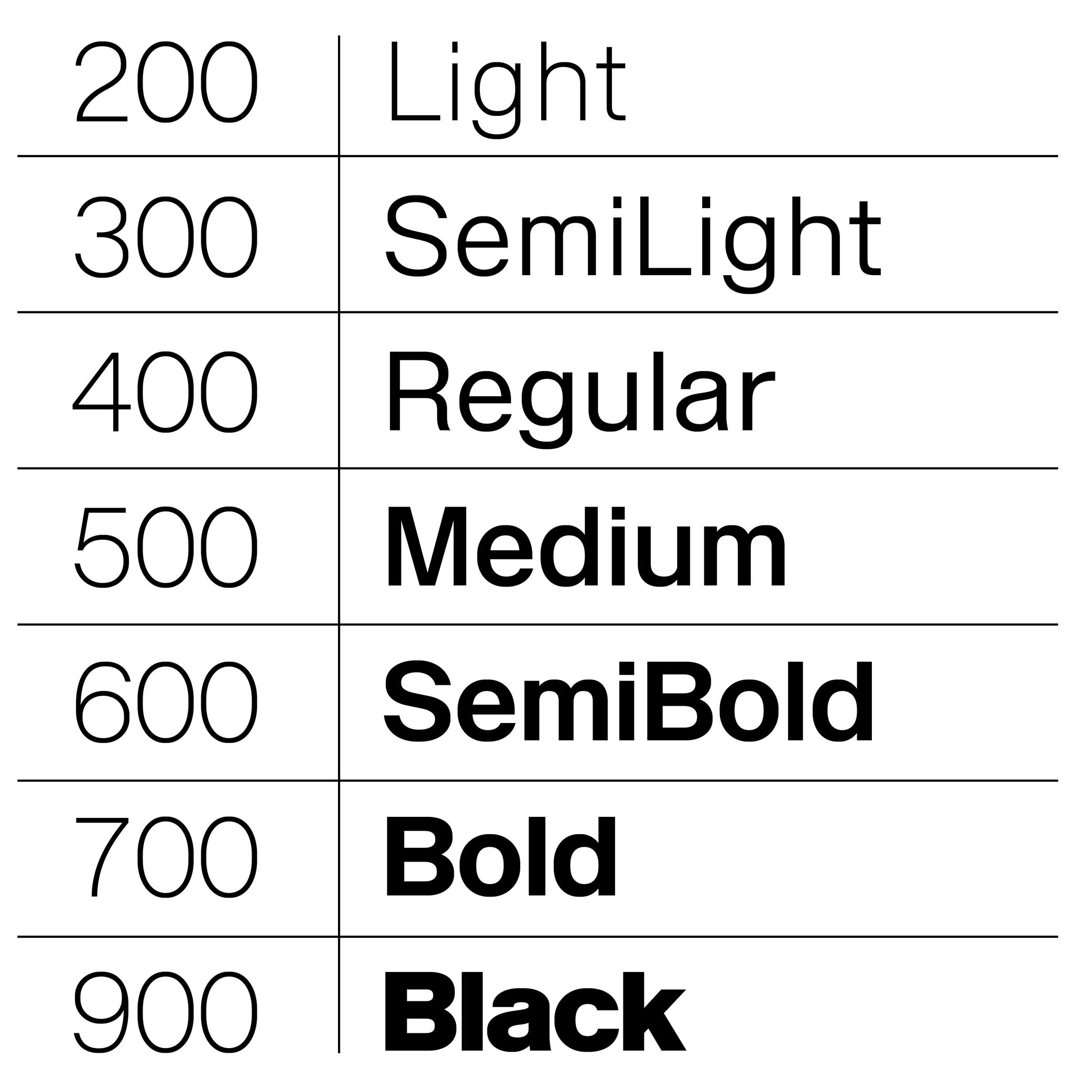
The weight of a typeface refers to the thickness of its strokes.
Within a typeface family, different weights are designed to be visually consistent across all glyphs of a given style.
NAMING CONVENTIONS
While much of the historical naming conventions (e.g., Light, Bold, Black) originate from the Latin typographic tradition, the concept of weight applies to all writing systems that use stroke thickness variations. These labels are not universal standards as style description conventions differs from a culture to another.
WEIGHT NAMES & CSS VALUES
In digital typography, weights are also expressed numerically, using the “font-weight attribute”:
• Thin: 100
• ExtraLight: 200
• Light: 300
• Regular: 400
• Medium: 500
• SemiBold: 600
• Bold: 700
• ExtraBold: 800
• Black: 900
FONT ENGINEERING HINT
In OpenType font formats, weight is stored in the OS/2 table under the “usWeightClass” field, which maps to CSS “font-weight” values (ranging from 100 to 900):
• while CSS defines nine steps, “usWeightClass” allows values from 1 to 1000, giving finer granularity for internal font definitions;
• CSS weight values are expected to correspond to the font’s weight class. Following this standard is important because many environments rely on these mappings for text rendering and style linking. If, for example, Regular = 350, browsers or apps may mislabel it or fail to recognize it as Regular, causing user confusion or incorrect transformation to Bold.
For variable fonts, the weight axis is defined by the registered axis tag “wght.” Unlike static fonts, it supports continuous interpolation between a minimum and maximum, allowing CSS “font-weight” to take any integer (e.g., 347) within the supported range for smoother transitions and precise control.
Localized weight names (e.g., ‘Gras’ for Bold in French, ‘Fett’ in German) are often generated from the OS’s internal dictionaries. This ensures style names appear in the user’s language even if the font lacks explicit translations. If the default naming does not strictly follow OpenType Specifications, localized names may not be translated correctly.